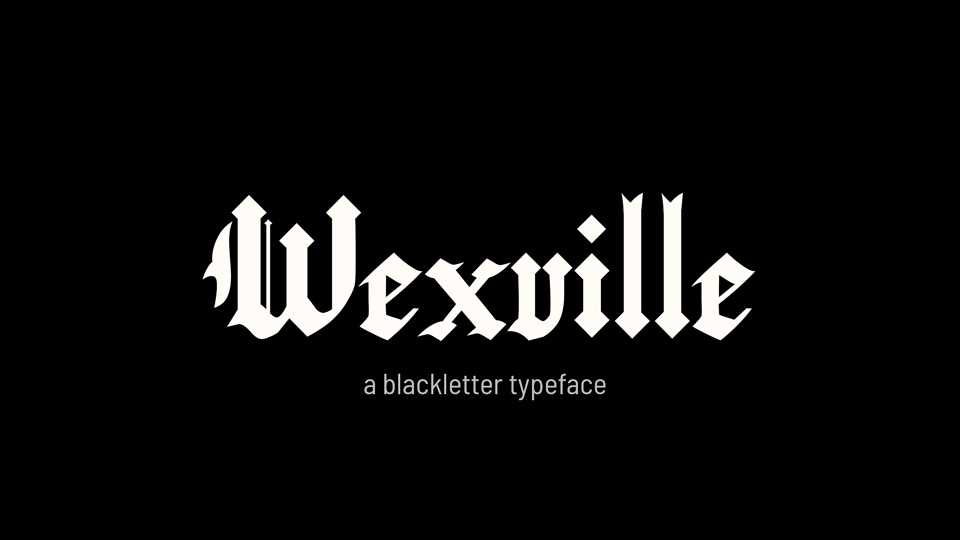
Download Wexville font, a blackletter calligraphy typeface with a handmade feeling. Wexville is great for projects relating to the Middle Ages, or in modern contexts such as tattoo or storefront graphics.
Designer: J Hudson